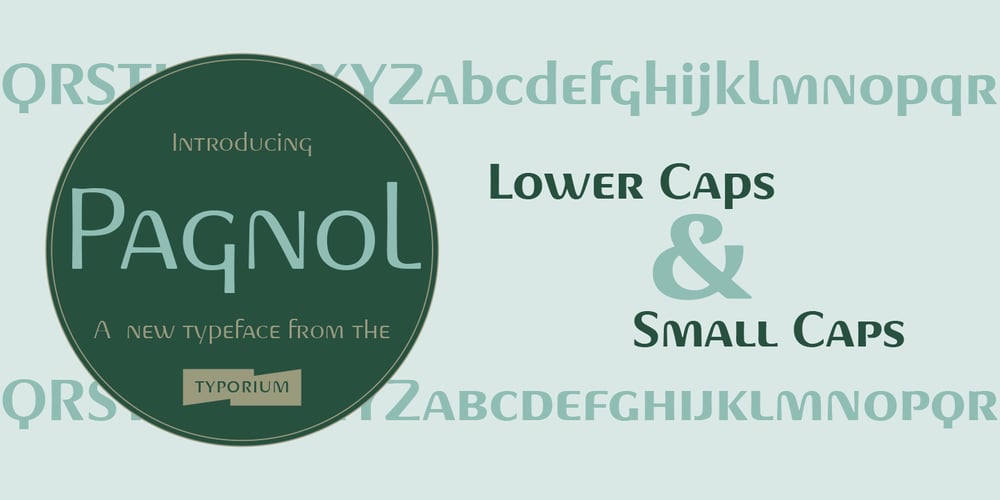
Pagnol Font Family was designed by Jean-Renaud Cuaz and published by Typorium. Pagnol contains 20 styles and family package options. The Pagnol typeface has been designed with a principle developed by A. M. Cassandre in 1937, when the great French designer created the Peignot typeface following paleographic studies on the evolution of letterforms. Researches in the history of writing have proved that the lowercase “a” is at its origin nothing but the “A” shape transformed through centuries by scribes until the invention of printing. A large number of lowercases meanwhile kept their original shapes. If the scribes’ hand didn’t find the necessity to simplify them, it is only because these letters could be easily written. Integrating the classical shapes of capitals to the lowercases has already been used, keeping the lowercases which are only a deformation of capitals. Nevertheless, the respect of readability imposes to keep ascendants and descendants from traditional lowercases which serve as optical focus points in a text and make reading easier. The particularity of Pagnol is to use rounded shapes on top and bottom of pointed capital letters to make them fit with corresponding lowercases (Aa, Mm, Nn, Vv, Ww, Zz). Lowercases proportions are wide, to be in tune with classic lowercase shapes in order to optimize readability. Five weights in roman and italic have been designed to offer a wide palette of typographic possibilities in all sizes and all paper and screen supports.